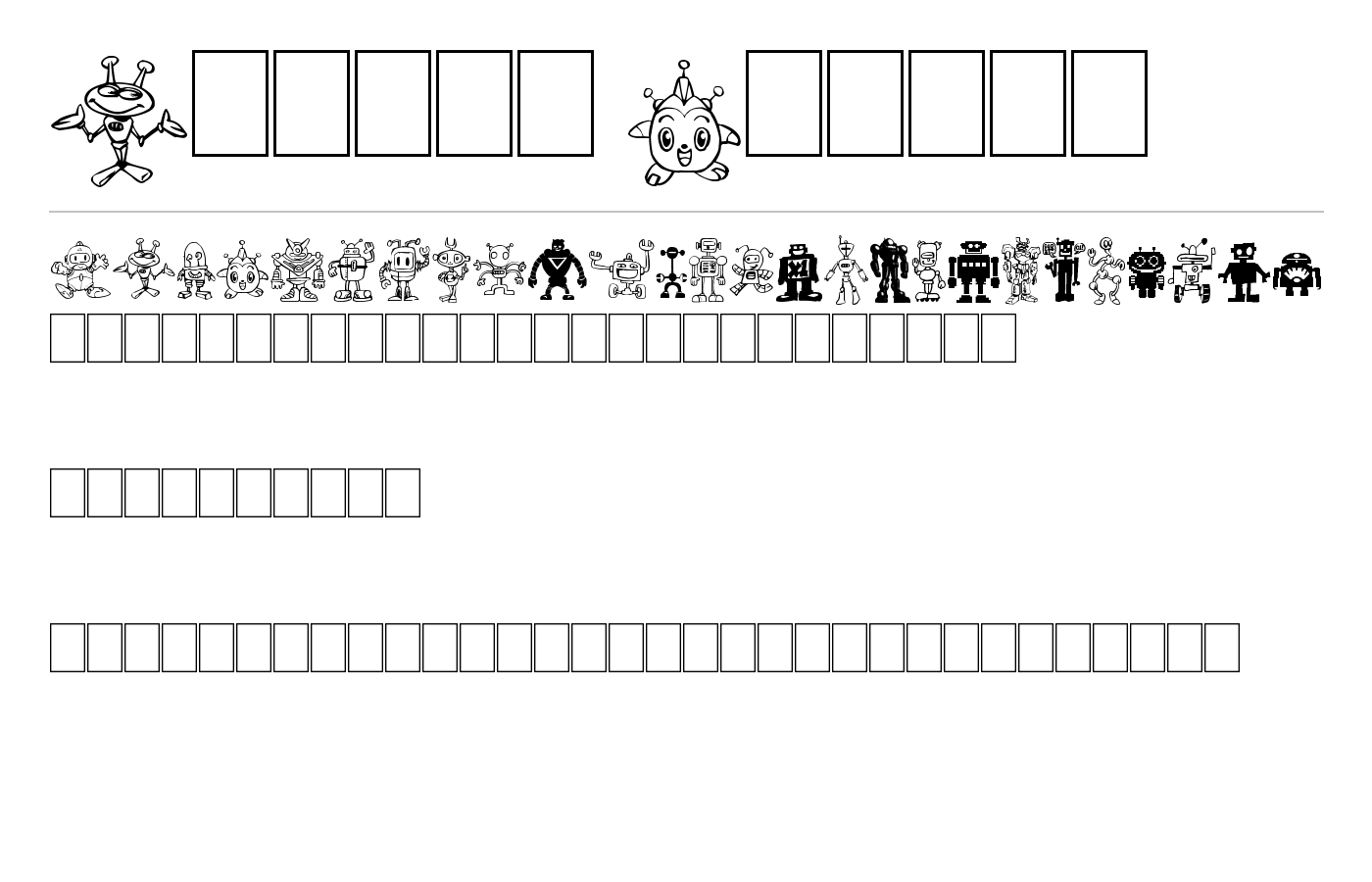
Bots'n Droids is a playful and whimsical dingbat font featuring a diverse array of charming robot and alien characters. Its bold, cartoon-like designs with clean lines and simple details make it perfect for fun, creative projects aimed at children or tech-themed themes. This font works especially well for logos, posters, and packaging where a lighthearted, imaginative vibe is desired.
Bots'n Droids Font
About Bots'n Droids Font
| Font family | Bots'n Droids Font |
| Designer | Imagex |